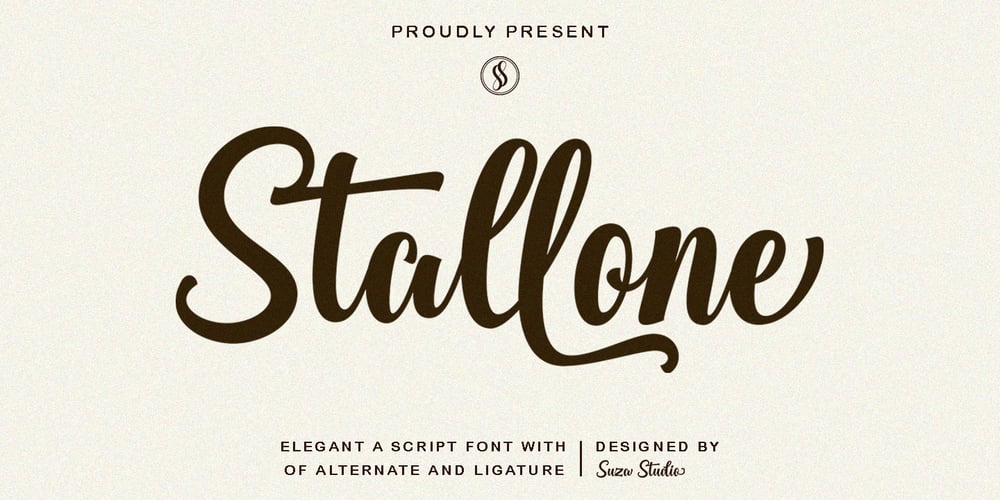
Stallone Font Family was designed by Zikrillah and published by Suza Studio. Stallone contains 1 styles and family package options. Stallone is a stunning Elegant Script font with a classic retro style, regular artistic swirls, coming together to create a distinctive, high-quality and exclusive typeface that will bring vintage charm to your designs.This font is created with advanced OpenType functionality and has the best quality guarantee, contains stylistic and contextual alternatives, ligatures and other features; all to give you complete control and customization capabilities.It contains all the characters and symbols you need, including all punctuation and numbers.